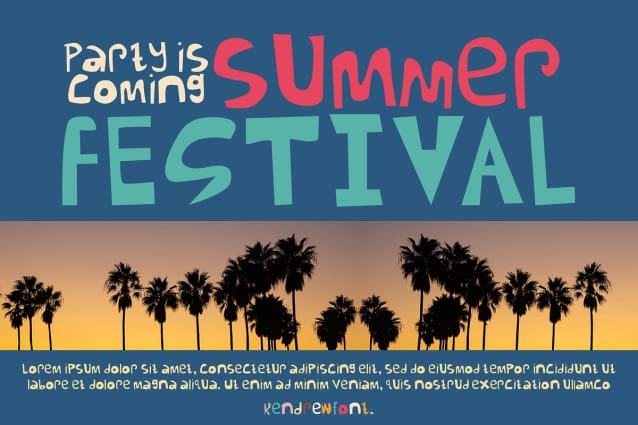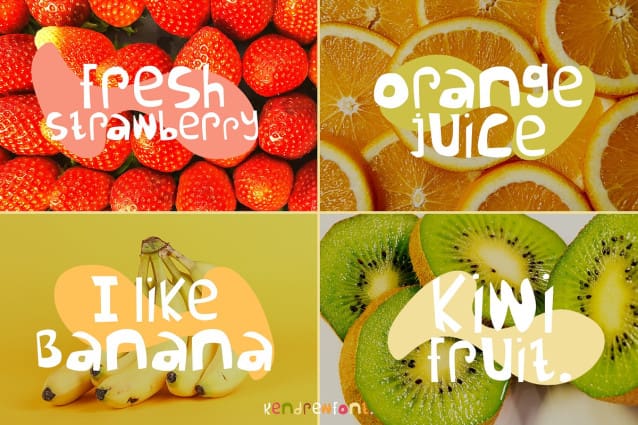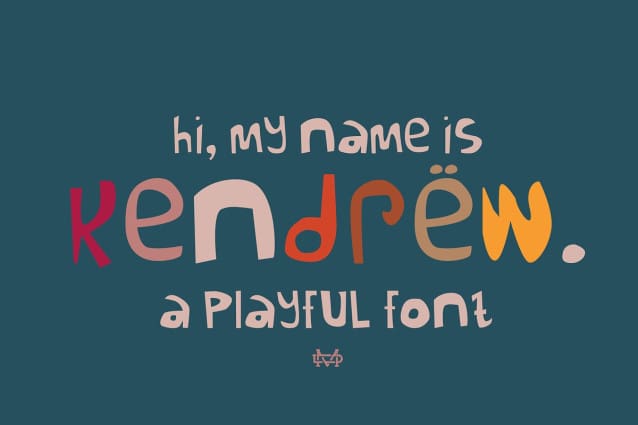
Kendrew Display Font
Kendrew Display Font, is a kids handwriten playful font and will be perfect for book, title branding, product packaging, invitation, quotes, t-shirt, label, poster, logo etc.